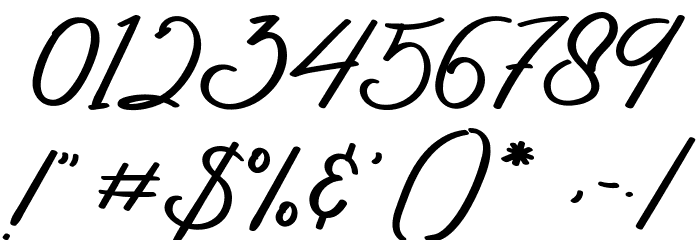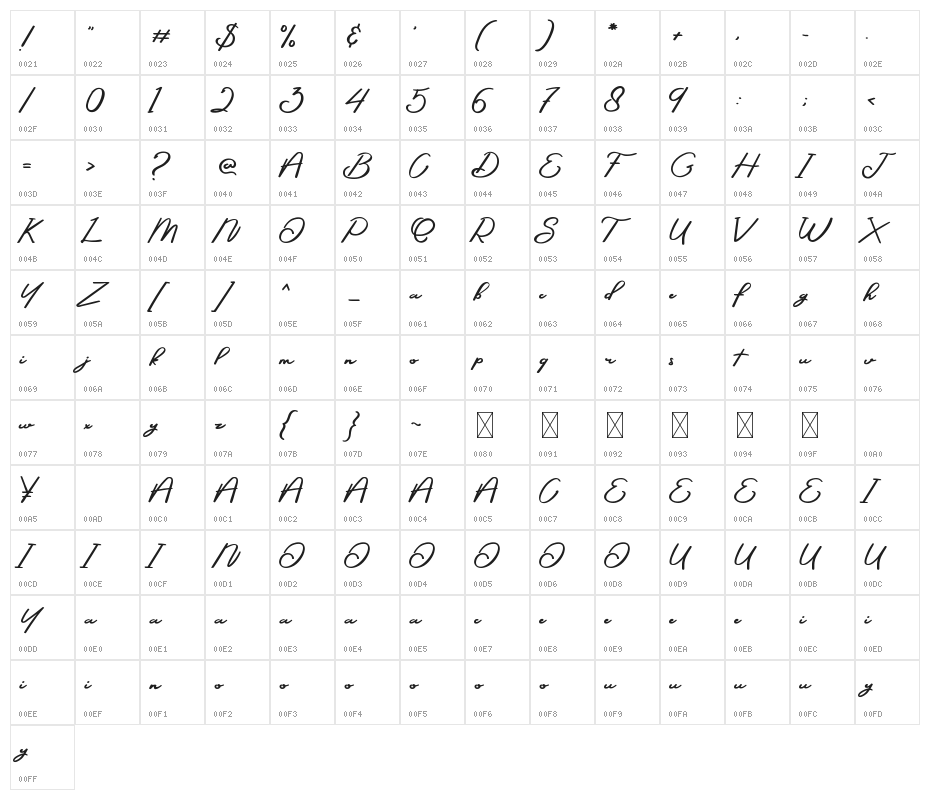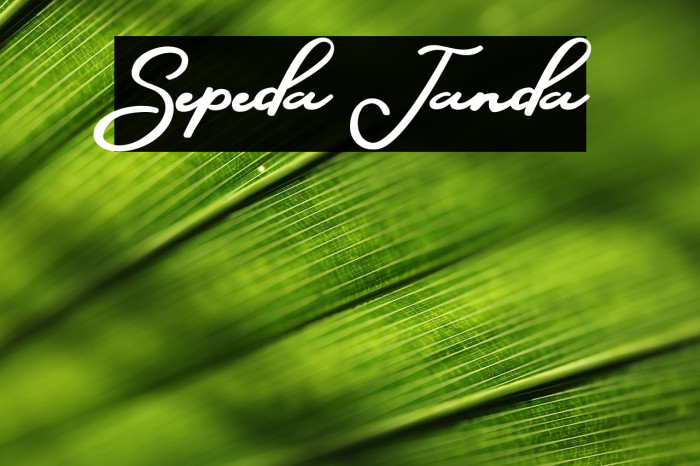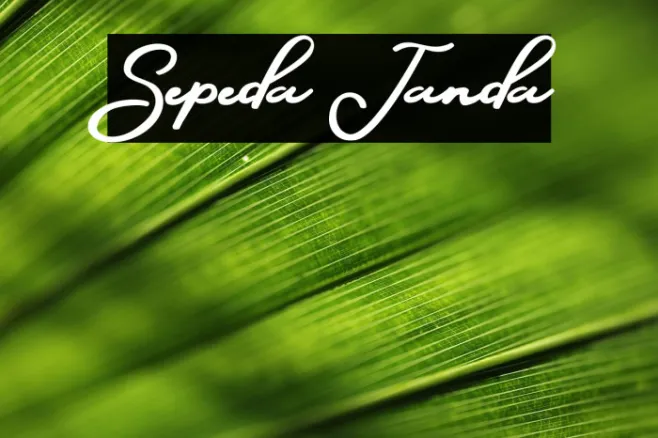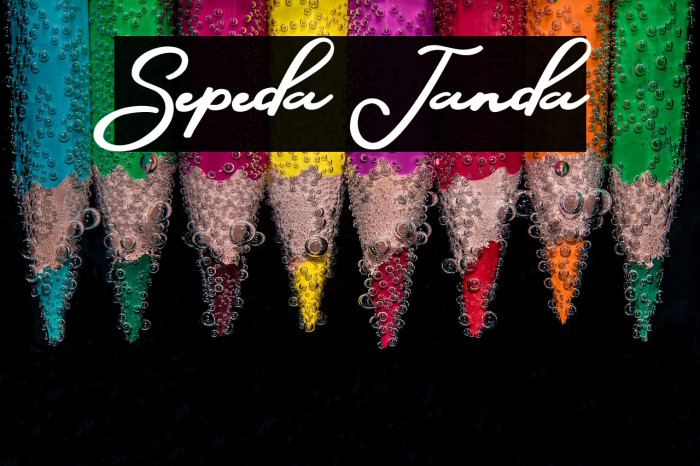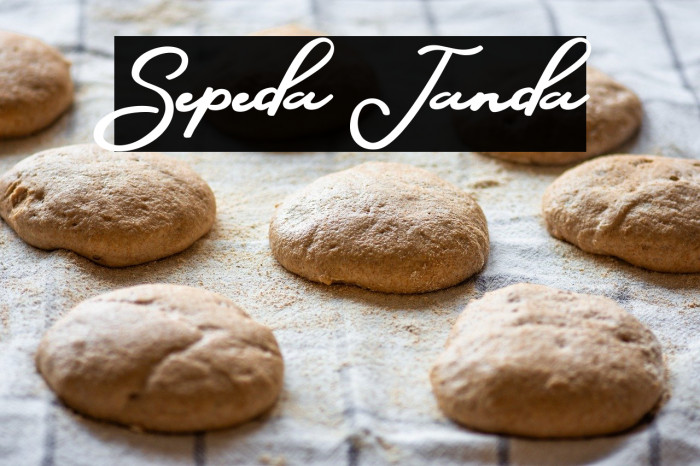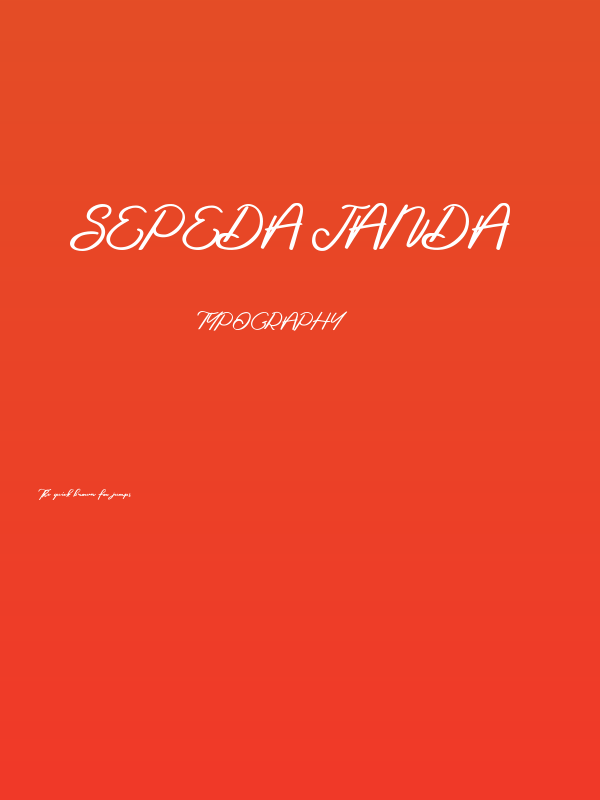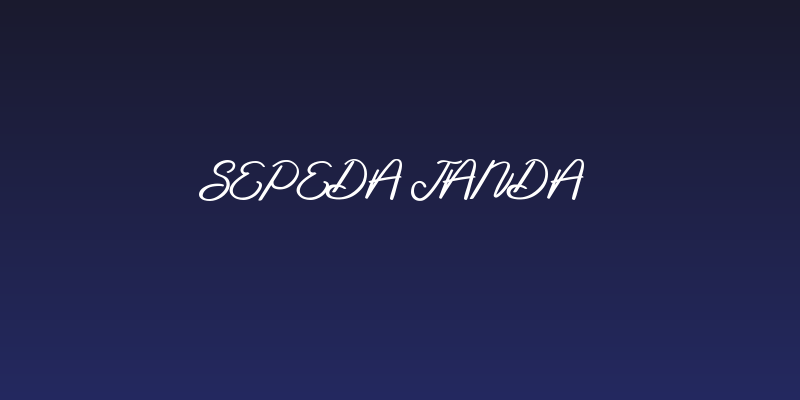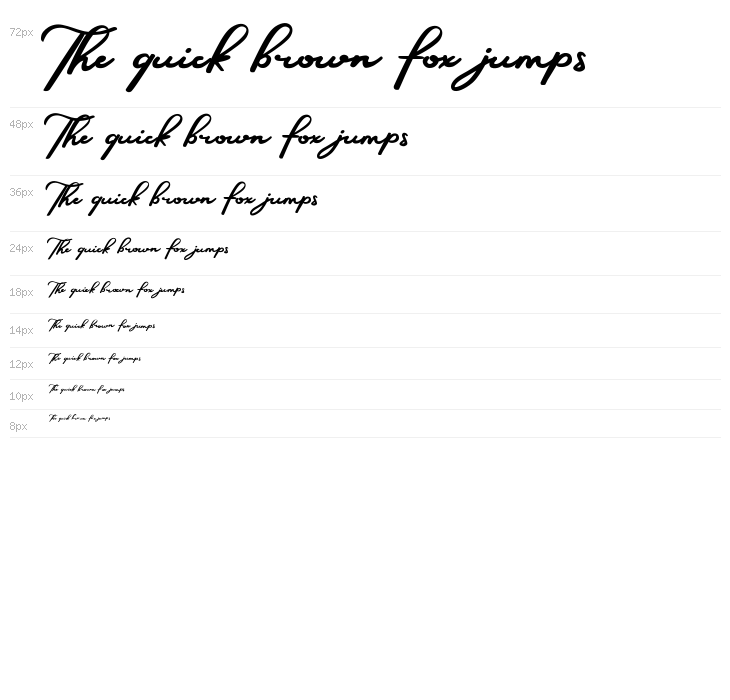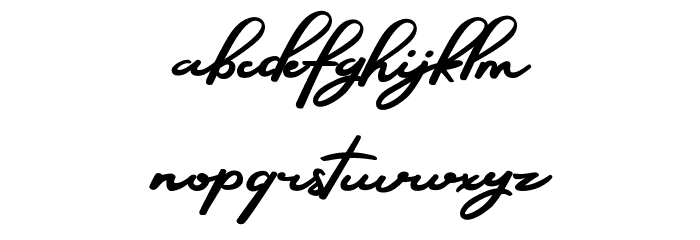
Sepeda Janda Font
Sepeda Janda Description
This font exhibits a dynamic and flowing script style, characterized by its elegant and cursive letterforms. The uppercase letters are bold and slightly slanted, giving a sense of movement and sophistication. The lowercase letters maintain a consistent flow, with smooth connections between characters, enhancing its cursive nature. The numerals are distinct and maintain the same fluidity, ensuring readability while retaining the font's overall aesthetic. Special characters are well-integrated, matching the style of the alphabetic characters, making this font versatile for various uses.
Overall StyleElegant, Decorative
Use CaseHeadlines, Invitations, Branding
Proposed ProjectsIdeal for wedding invitations, elegant branding, personal signatures, and decorative headings.